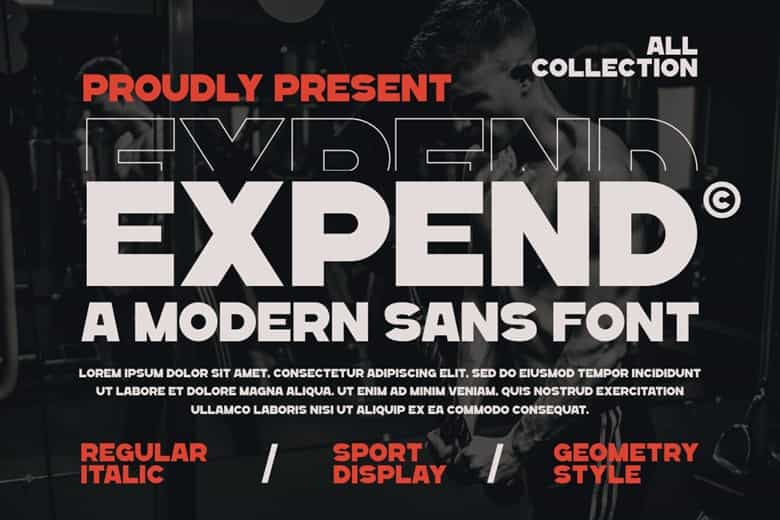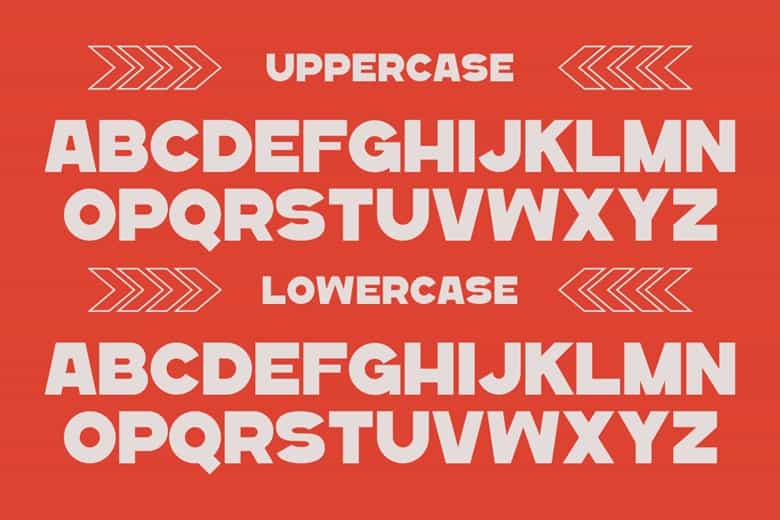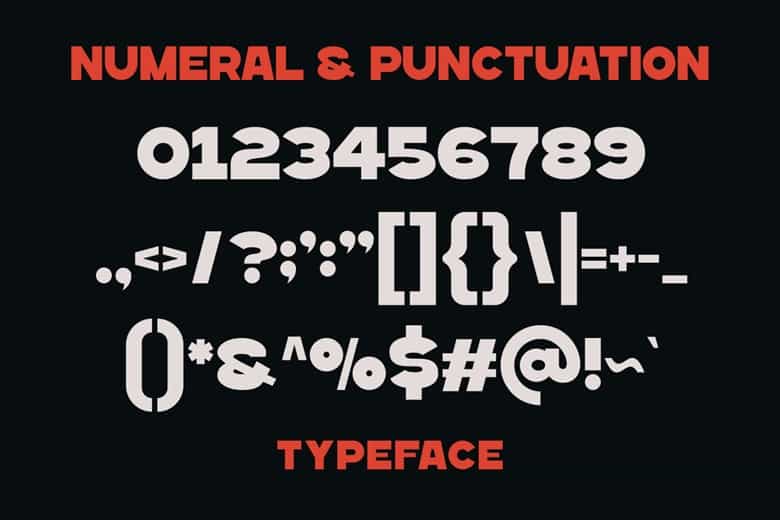
Expend is a sans serif typeface that represents modern design elements in the most simplistic way possible. It has a sleek design that gives your designs a modern and sophisticated look that you can’t get from other software.